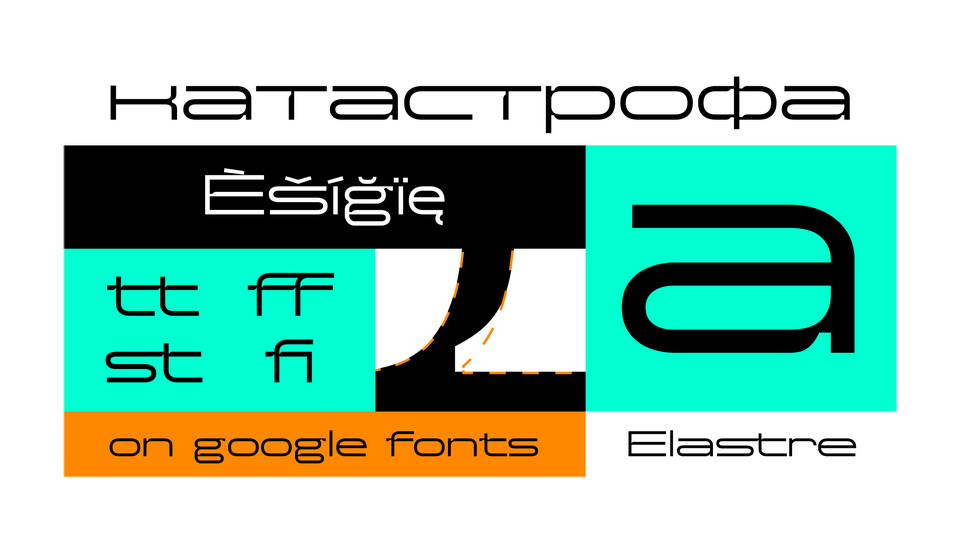
Download Elastre font, a modern-looking typeface, that draws inspiration from the early 2000s and the chaotic energy of electronics, evoking the futuristic designs and vibrant colors of advertisements from that era.
Designer: Valeriy Egorov